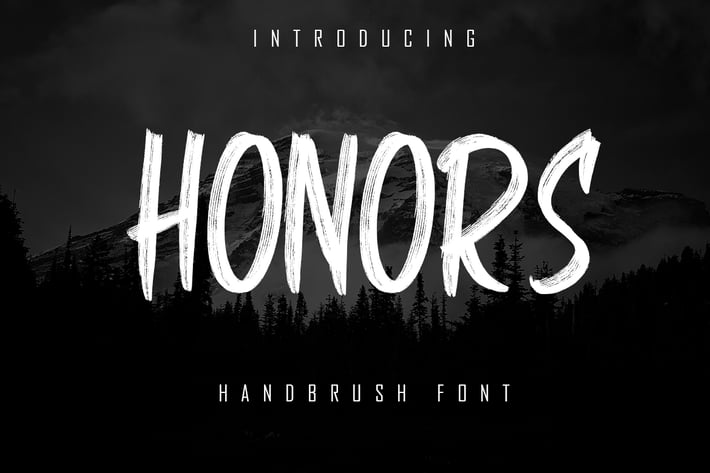
HONORS - Handbrush Font
HONORS is a type of textured brush or paint scratches or original brush, there are textures like the original stroke of this font suitable for other film or commercial needs that can support your business or company.